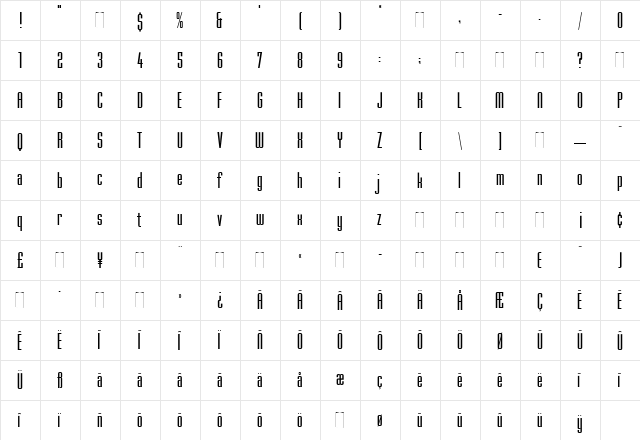
Mekanik Regular
Design Context for Mekanik Typeface
Mekanik takes a measured approach to typography — its balanced proportions and neutral character make it a reliable workhorse for both digital and print work.